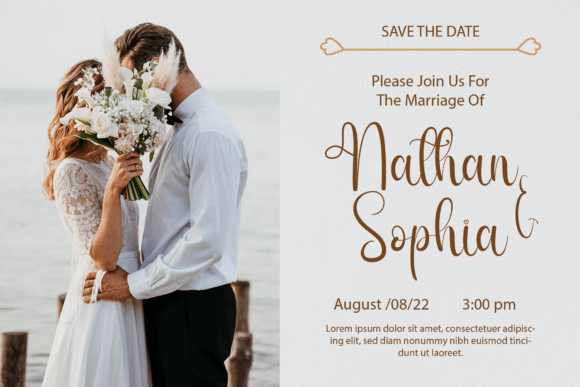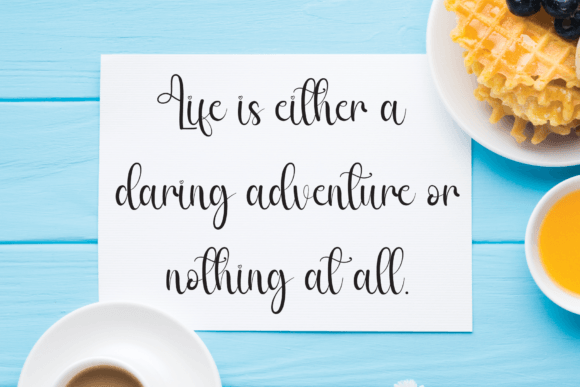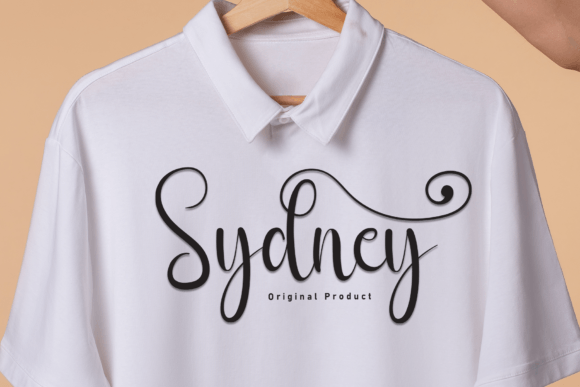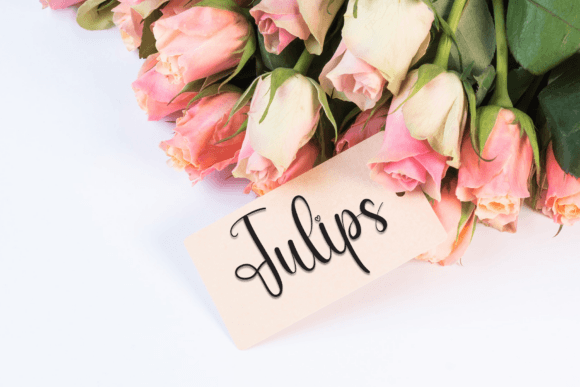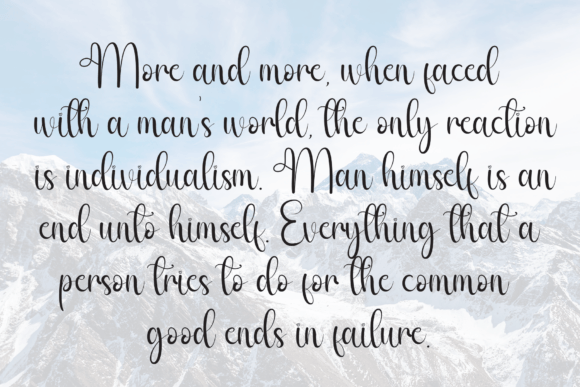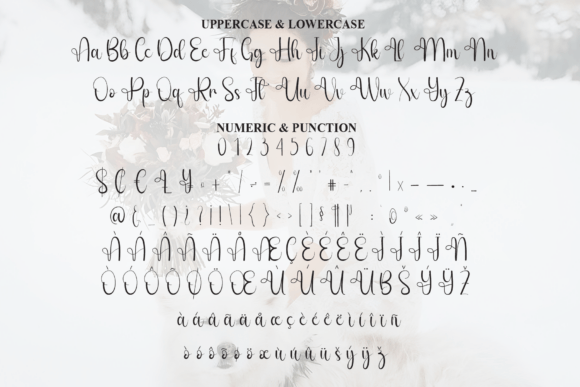
The Sweet Spot: Discovering Bridesnow Font
I’ll never forget the time I was working on a wedding invitation project, and my client asked for a font that was “fun, playful, and totally Instagram-worthy.” I scoured the internet, tried out a gazillion fonts, but nothing seemed quite right. That was until I stumbled upon Bridesnow Font. 💕
This delightful, handwritten display font has been a game-changer for me, and I’m excited to share it with you. Infused with sweetness and a cordial charm, Bridesnow Font is perfect for adding a fun touch to your designs. Whether you’re a designer, crafter, or creative hobbyist, this font is sure to become a favorite.
- ✅ The unique, quirky character that sets it apart from other handwritten fonts
- ✅ The perfect balance of sweetness and playfulness, making it suitable for a wide range of projects
- ✅ The font’s versatility – it works beautifully for both digital and print designs
- ✅ The attention to detail in the font’s design, including subtle variations in line width and letterforms
- ⚠️ The font may not be suitable for very formal or traditional designs, as it has a distinctly playful feel
- ⚠️ Some users may find the font’s quirks and variations a bit overwhelming, especially for longer texts
- Experiment with the font’s OpenType features, such as stylistic alternates and glyphs, to add visual interest
The Story Behind Bridesnow Font
Bridesnow Font was designed by a talented typographer who wanted to create a font that captured the magic of special moments. With inspiration from classic handwritten fonts and a dash of modern playfulness, Bridesnow Font was born. Today, it’s a favorite among designers and crafters who want to add a touch of whimsy to their designs.
Q: Is Bridesnow Font suitable for body text?
A: While Bridesnow Font is beautiful, it’s best suited for display text or short paragraphs. Its quirks and variations may make it difficult to read for longer texts.